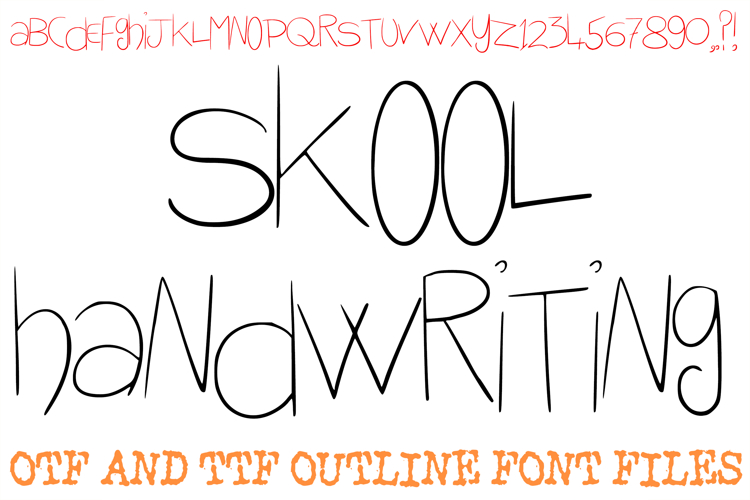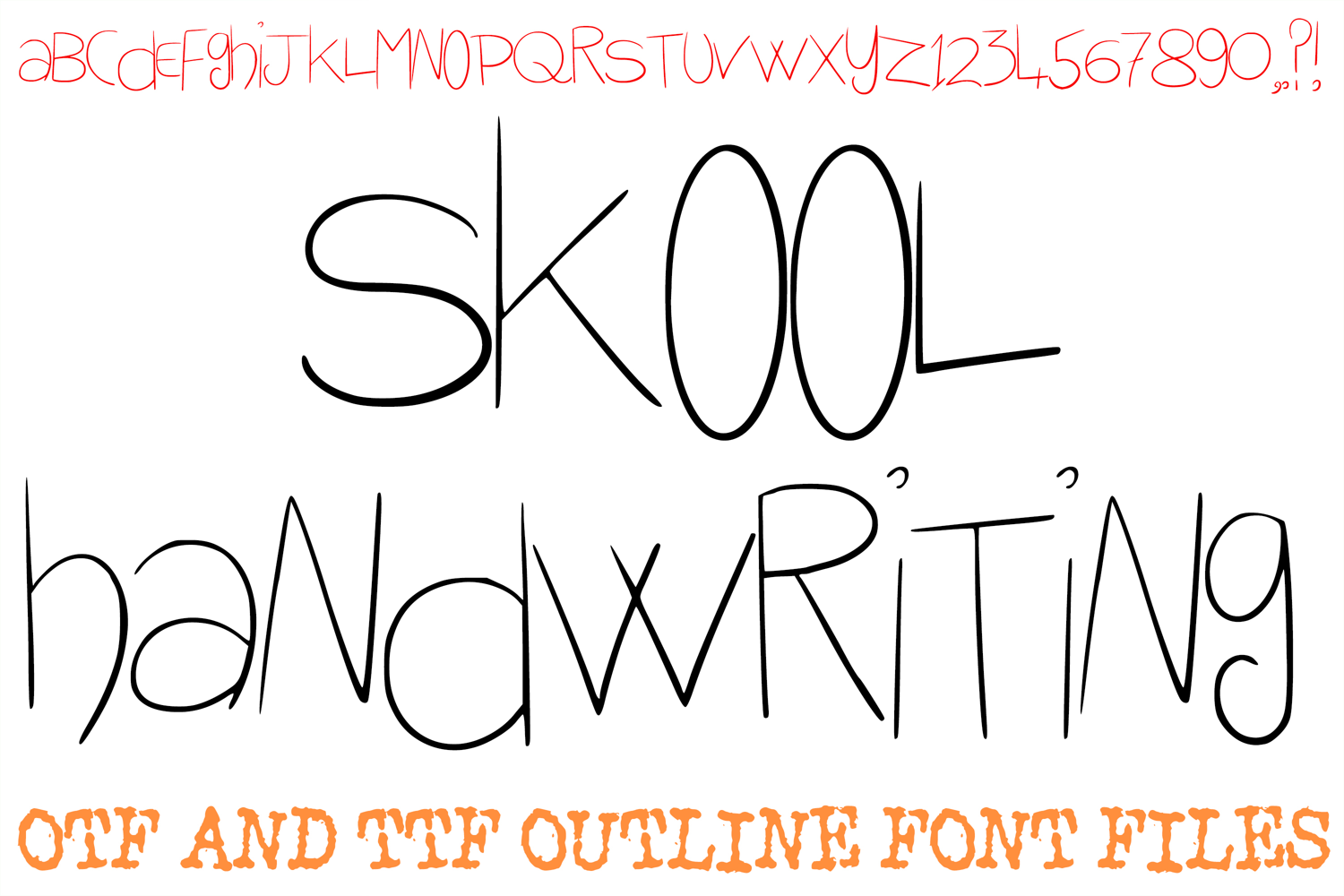
Skool Handwriting Font Written Children's Lettering ABC OTF
Bring a touch of youthful charm to your projects with the Skool Handwriting Font! This hand-drawn typeface features tall, slender characters that perfectly capture the innocent and playful essence of a child's handwriting. It is an ideal choice for educational materials, classroom decor, children's book titles, and any design that benefits from a casual, "back-to-school" aesthetic.
The thin, minimalist line work provides a clean and authentic look that feels both modern and nostalgic. Whether you are a teacher creating worksheets, a parent making personalized labels, or a designer working on a playful brand identity, the Skool Handwriting Font offers a versatile, handcrafted feel that is easy to read and full of personality.
Authentic Doodle Style: The slightly irregular, hand-drawn strokes provide a genuine, non-digital look that mimics real penmanship.
Tall & Skinny Silhouette: The high-reaching letterforms create a modern, space-saving aesthetic that works beautifully for headlines and captions.